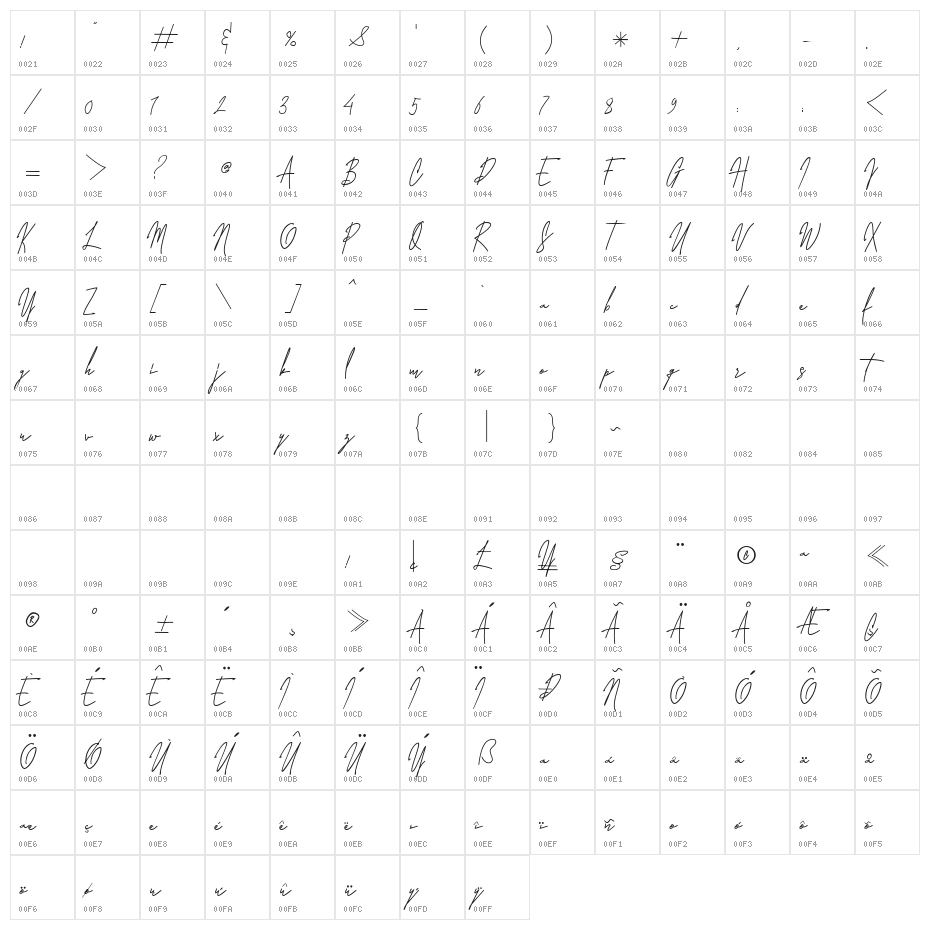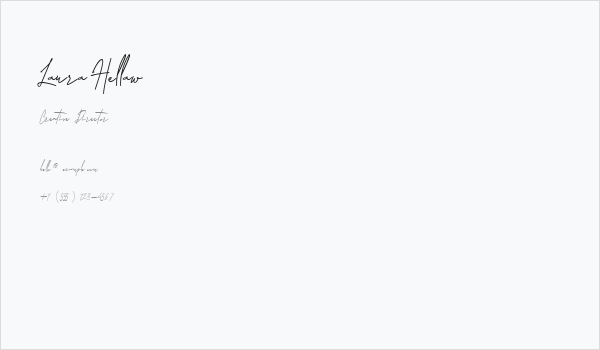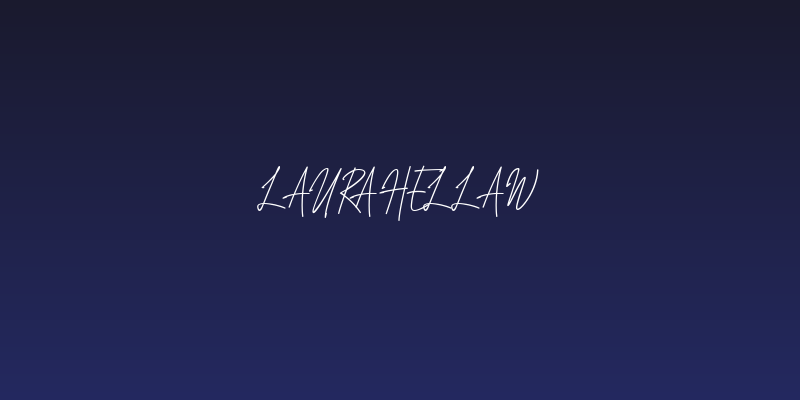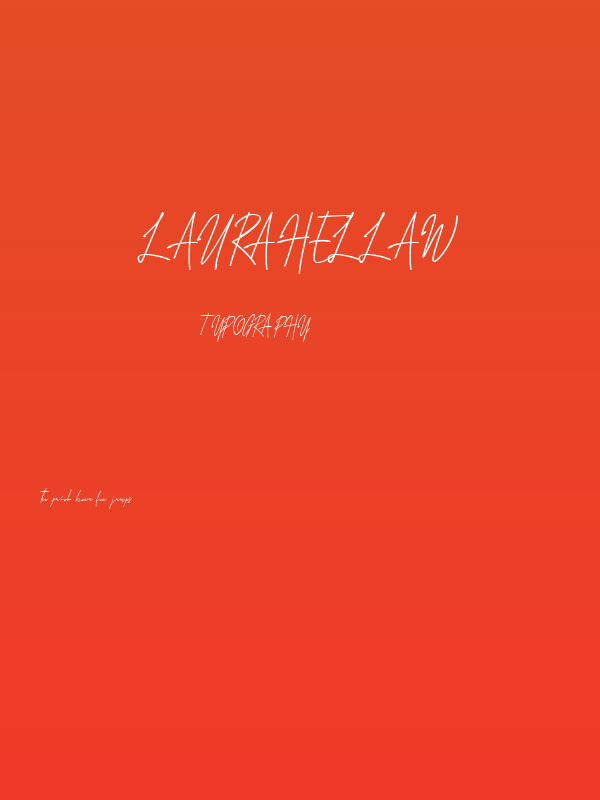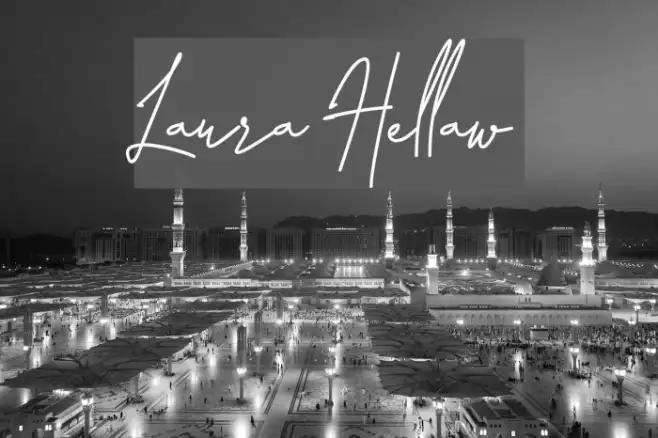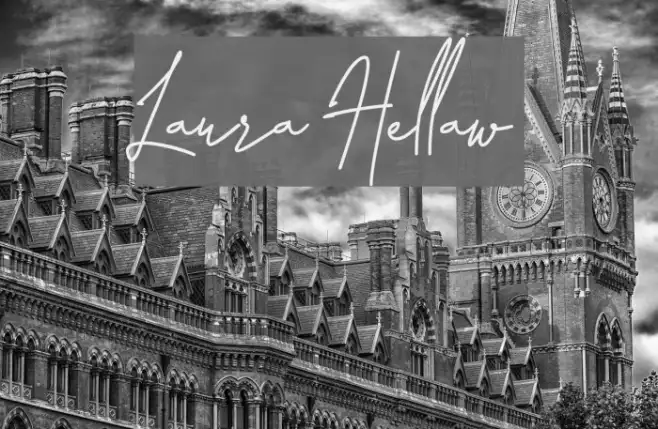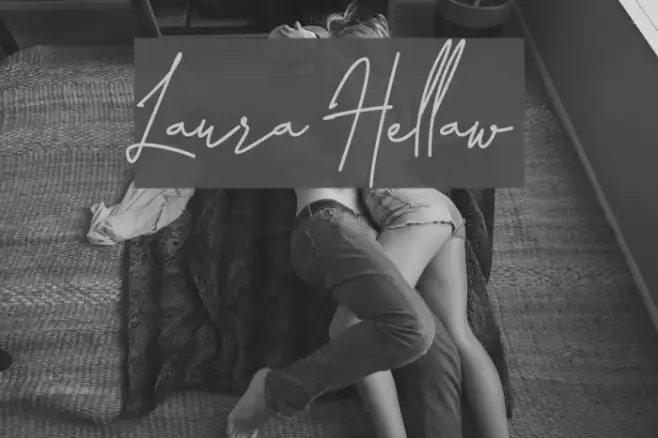
Laura Hellaw Font
Laura Hellaw Description
This font exhibits a dynamic and fluid handwritten style, characterized by its elegant and flowing script. The letters are interconnected with smooth, sweeping strokes that convey a sense of motion and grace. The uppercase letters are bold and prominent, while the lowercase letters maintain a consistent flow, enhancing readability. The numerals and special characters are crafted with the same attention to detail, ensuring a cohesive appearance across all elements. This font's design is both sophisticated and approachable, making it suitable for a variety of creative applications.
| Proposed Projects | Ideal for wedding invitations, personal branding, greeting cards, and artistic projects. |